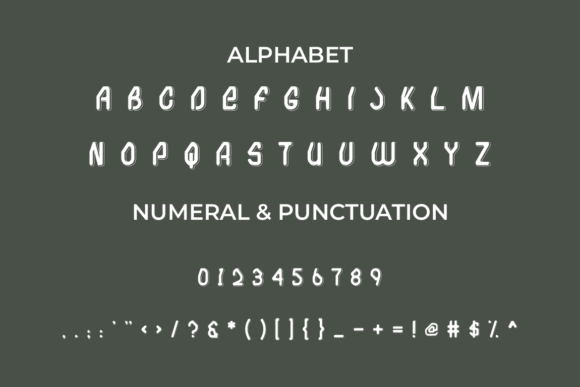
Introduction to Ngopo Font
Have you ever stared at a blank canvas, waiting for the perfect font to bring your creative project to life? For designers, finding that elusive ‘aha’ moment can be a game-changer. For me, it was discovering the Ngopo Font – a modern and cool display font that adds a touch of sophistication to any design.
What I love about the Ngopo Font is its versatility. Whether you’re working on a high-quality branding project or a free download template, this font is sure to elevate your design. Its clean lines and sleek design make it perfect for a creative project that requires a bit of flair. And the best part? It’s a valuable resource for designers, offering a transparent background that’s easy to work with.
- Features a unique, modern design with a transparent background, allowing for flexibility in creative projects.
- Perfect for use in digital design, including web design, graphic design, and UI/UX design.
Honest Review: Ngopo Font
I recently had the opportunity to work with the Ngopo Font, and I must say, it’s been a game-changer for my creative projects. The high quality of this font has taken my designs to the next level.
- ✨ One of the standout features of the Ngopo Font is its versatility. It’s perfect for a wide range of design projects, from web design to print materials.
- ✨ I’ve found the Ngopo Font to be incredibly easy to use, even for complex design projects.
- ⚠️ In some instances, the font can appear a bit too ornate, which may not be suitable for all design projects.
Overall, I’m thoroughly impressed with the Ngopo Font. It’s a fantastic design resource that has elevated my creative projects. I would definitely recommend it to fellow designers looking for a high-quality font that’s easy to use and versatile.
Some tips for getting the most out of Ngopo Font include using it for creative projects that require a unique and eye-catching font style. You can also experiment with different font sizes, colors, and styles to create a visually appealing design.
Ngopo Font is commonly used in social media graphics, presentations, and other visual content. It’s also a great choice for designing logos, brochures, and other marketing materials.